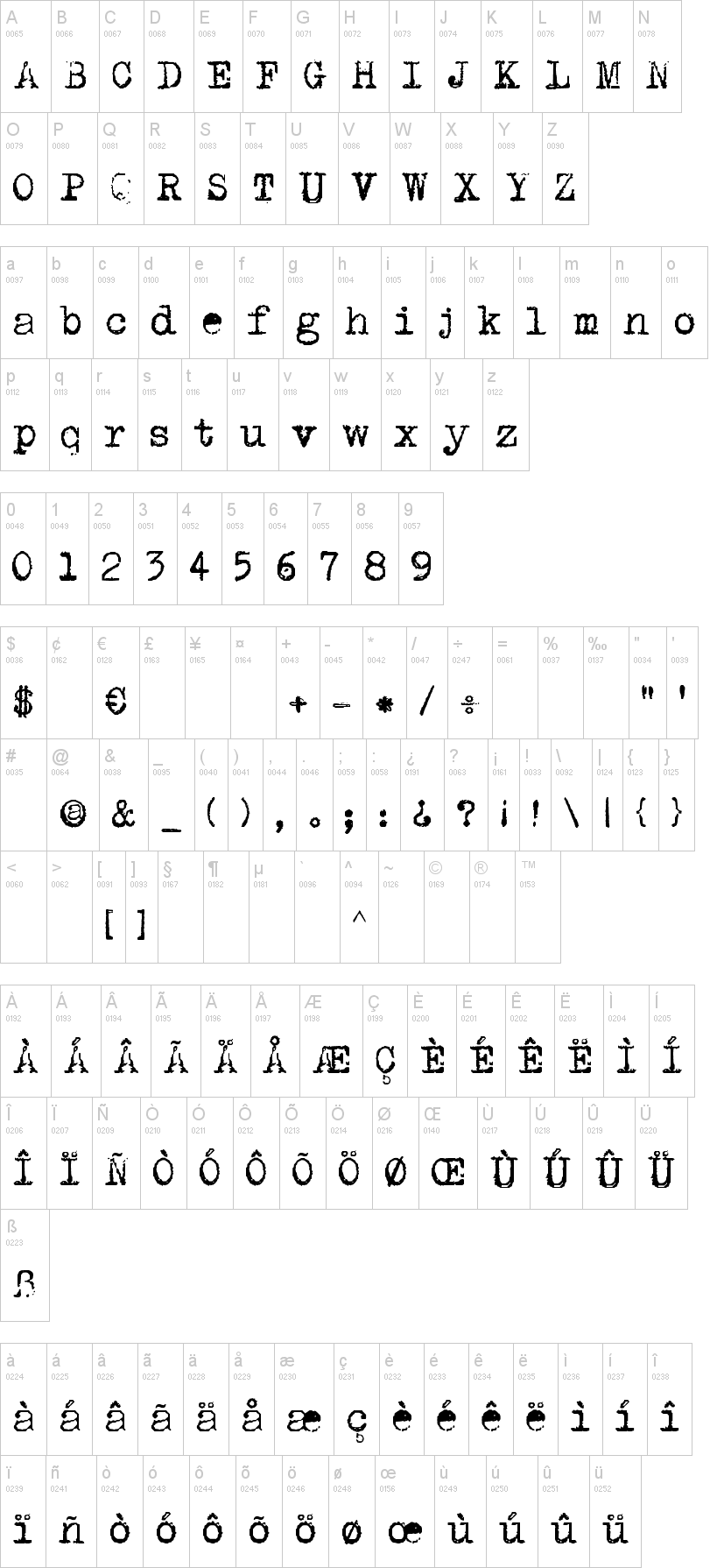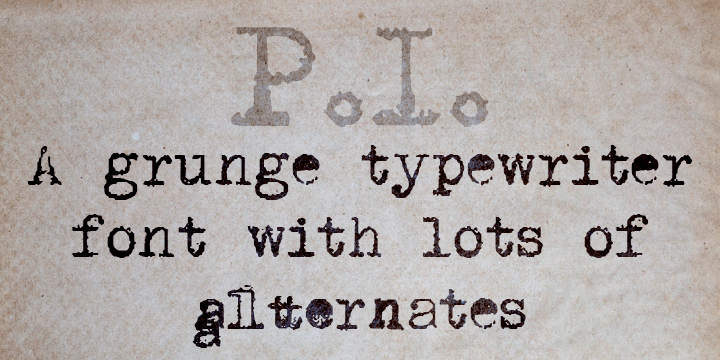
Note of the authorI found a pre-war typewriter (for those of you who wonder: which war would that be? - well, WW2....) and I made this nice font. The version here is the basic version: it is donationware. The complete version, including stylistic and contextual alternates, ligatures, embedding and kerning is also available. It comes in 5 flavors: regular, italic, bold, faded and strikeout. Just contact me if you would like to have the full version and I'll give you a price quote.